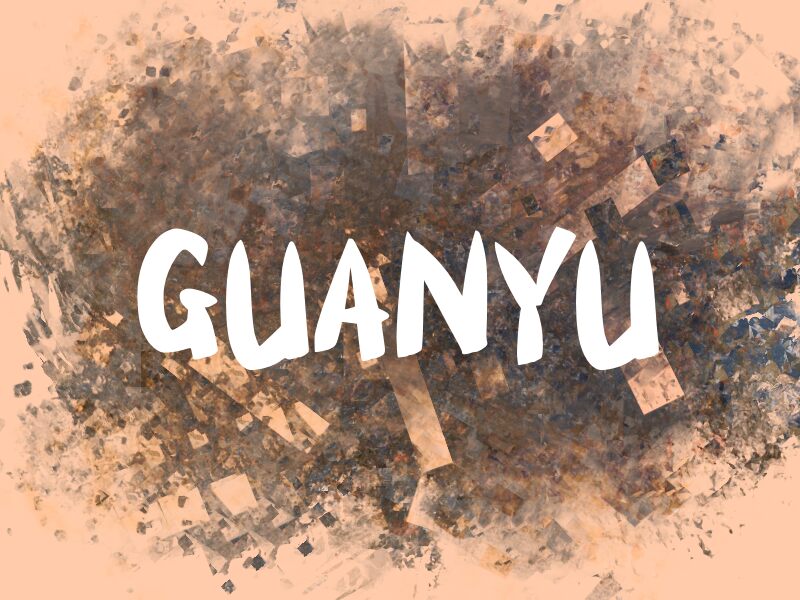
Guanyu, a captivating display font designed by wep, exudes a bold and undeniably Chinese aesthetic. With its striking brushstroke-inspired letterforms, this font emanates a sense of raw, expressive energy. The dynamic interplay of thick and thin strokes creates a striking visual contrast, lending the design a powerful, commanding presence. Guanyu's bold, uncompromising style is sure to captivate and command attention in any setting.
This versatile font lends itself seamlessly to a wide range of design applications, from eye-catching headlines and impactful branding to dynamic packaging and editorial layouts. Guanyu's strong, confident personality makes it an ideal choice for projects that require a bold, distinctive typographic voice, such as contemporary art exhibits, fashion editorials, or avant-garde advertising campaigns. Its unique cultural influences also make it a compelling option for projects celebrating Chinese heritage or exploring themes of cultural identity.